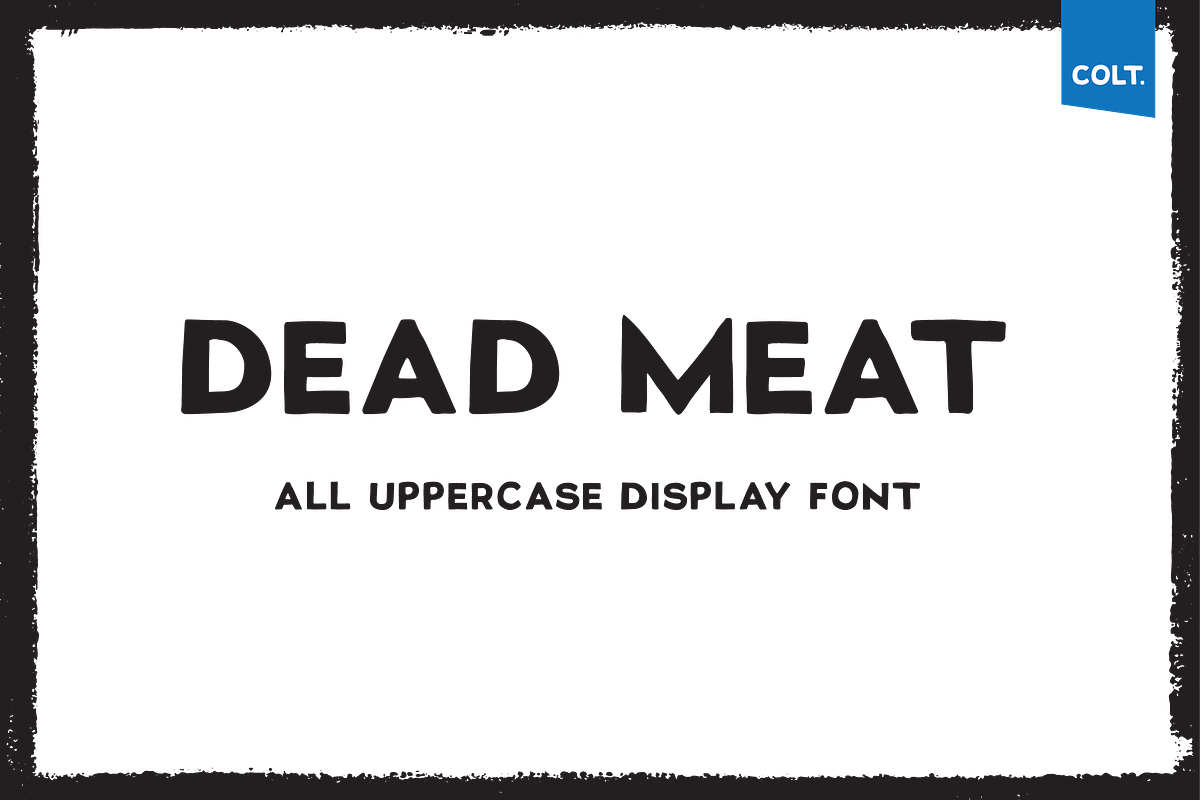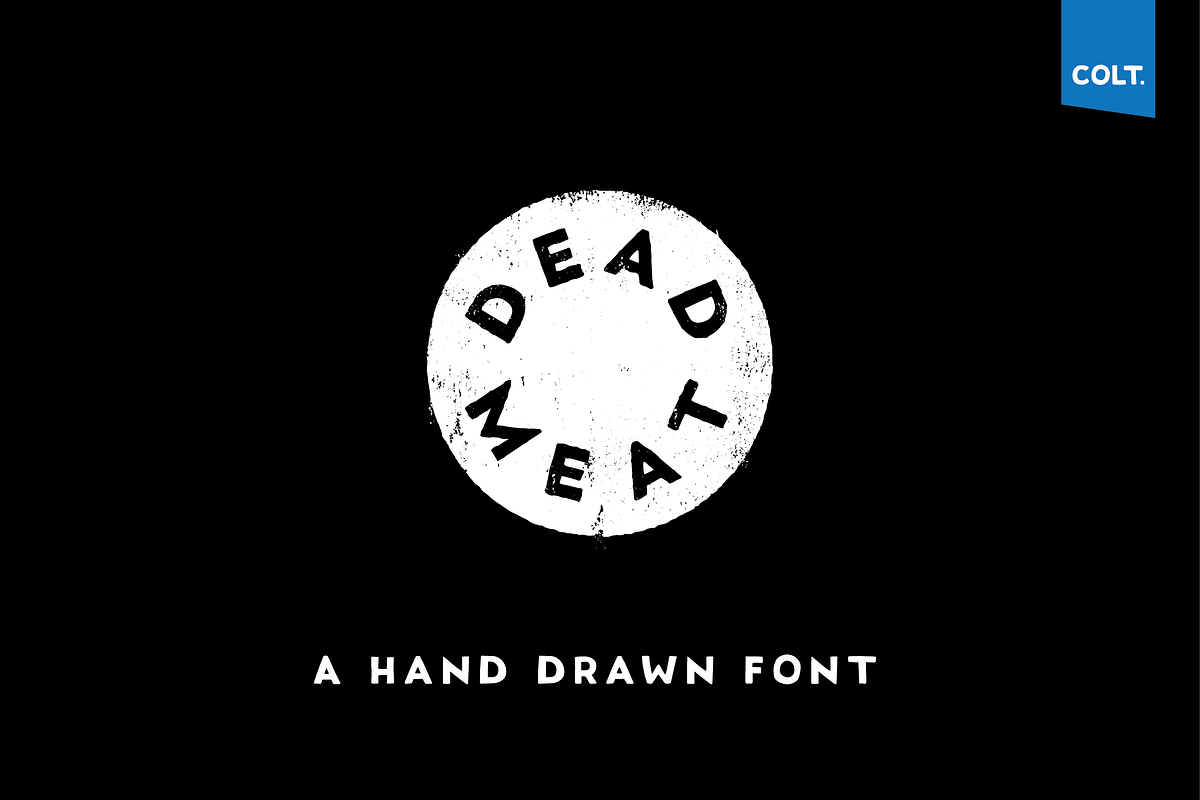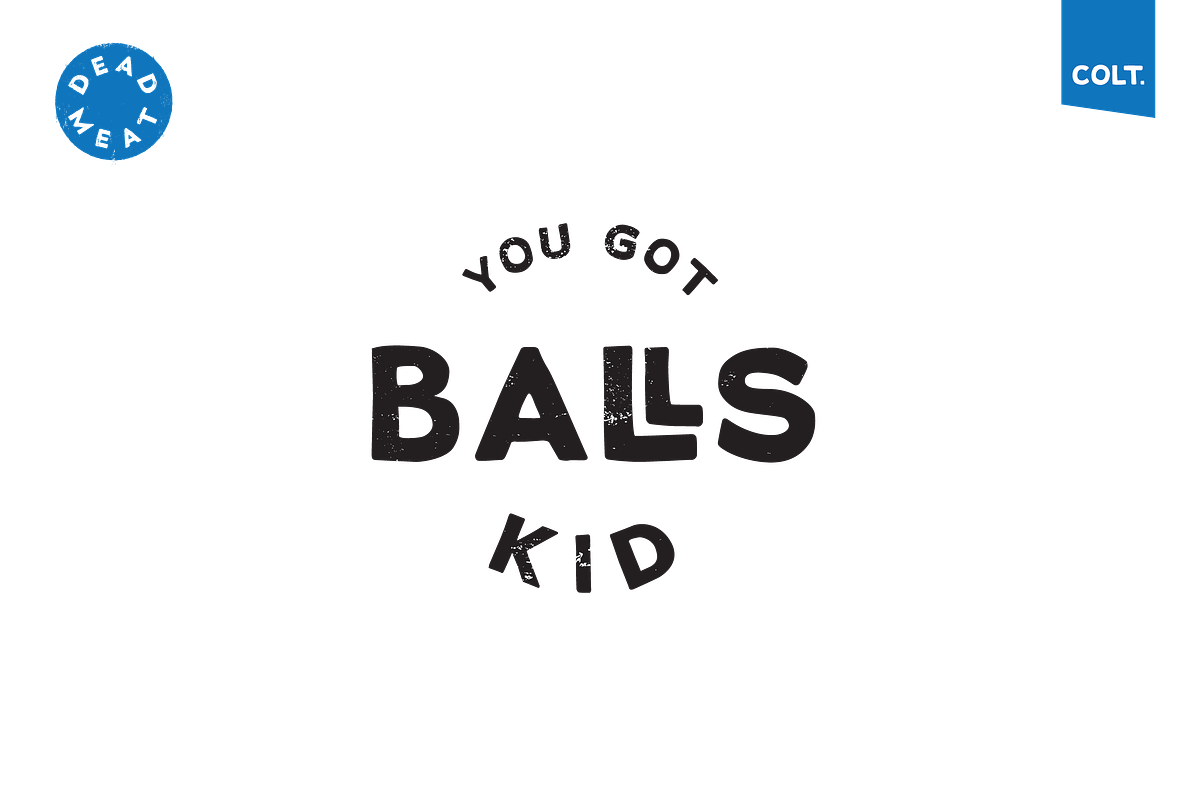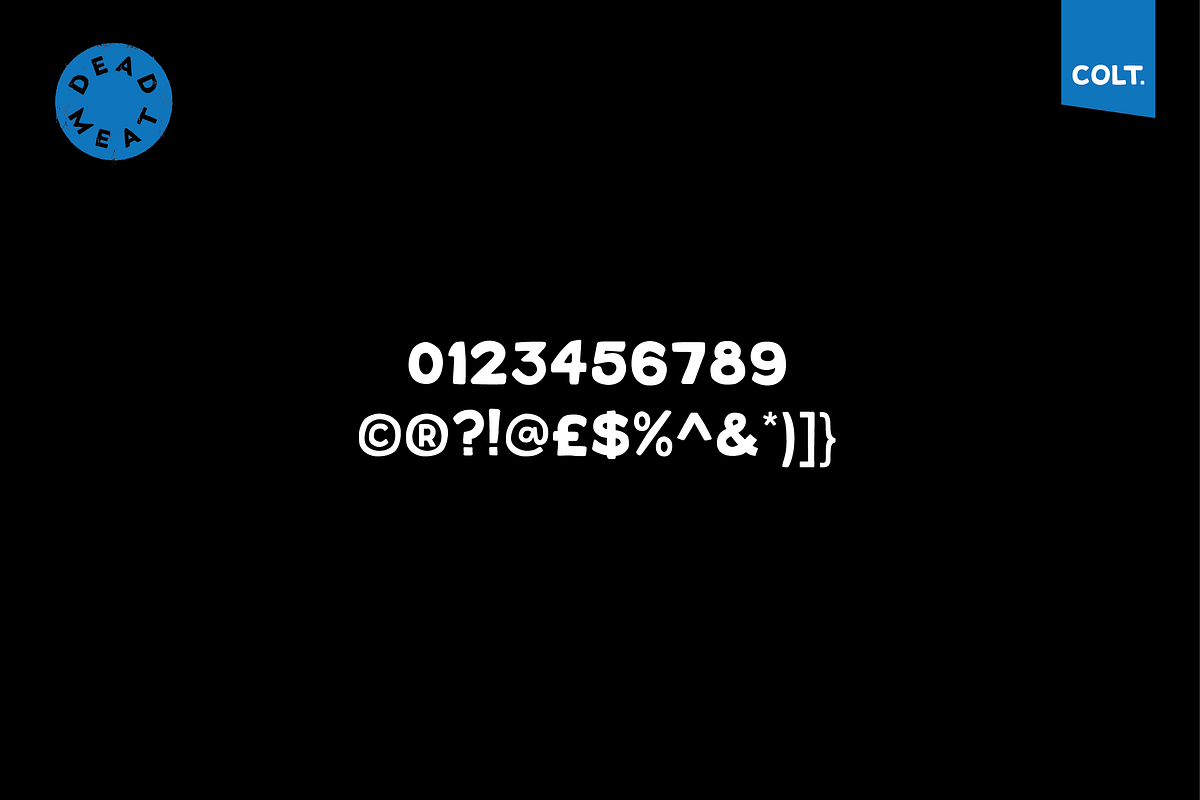
DEAD MEAT - T-shirt Design Font
DEAD MEAT - T-shirt Design Font by Colt Type Co is a font selected for branding, posters, packaging, typography.
- This pack includes all uppercase letters and numerals.
- uppercase letters (use lower case key strokes for alternative character)
DEAD MEAT - T-shirt Design Font by Colt Type Co fits naturally into Branding, posters, packaging, typography.